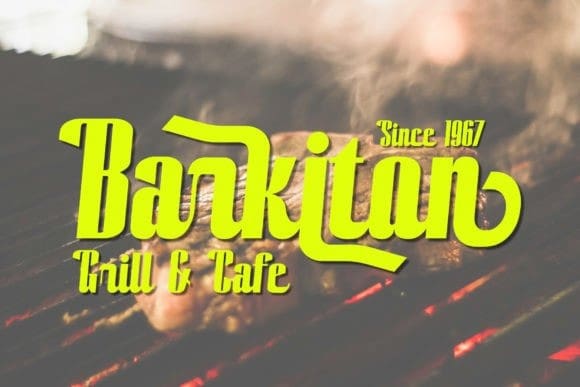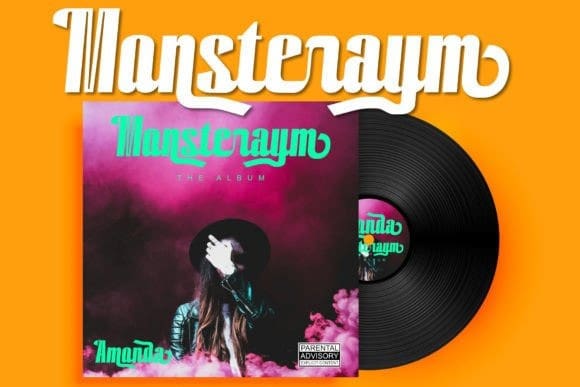
Katelyn Script Font
Katelyn Script Font, a font designed to bring elegance and sophistication to your designs. With its wide array of alternate characters, this font allows you to create truly unique and personalized typography. Each letter is carefully crafted to convey a sense of modernity and style, making it perfect for branding, wedding invitations, and other special occasions. Stand out from the crowd and elevate your designs with “Katelyn Modern Script Display.”